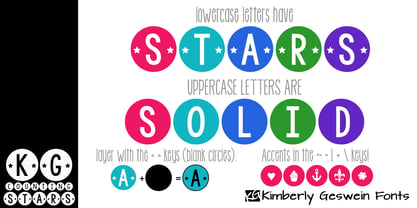
KG Counting Stars
by Kimberly Geswein
KG Counting Stars Font Family was
designed by
Kimberly Geswein and
published by
Kimberly Geswein. KG Counting Stars contains
1
styles.
The uppercase letters have no stars and the lowercase letters have stars. This provides 2 unique options for titles.
Designers: Kimberly Geswein
Publisher: Kimberly Geswein
Foundry: Kimberly Geswein
Design Owner: Kimberly Geswein